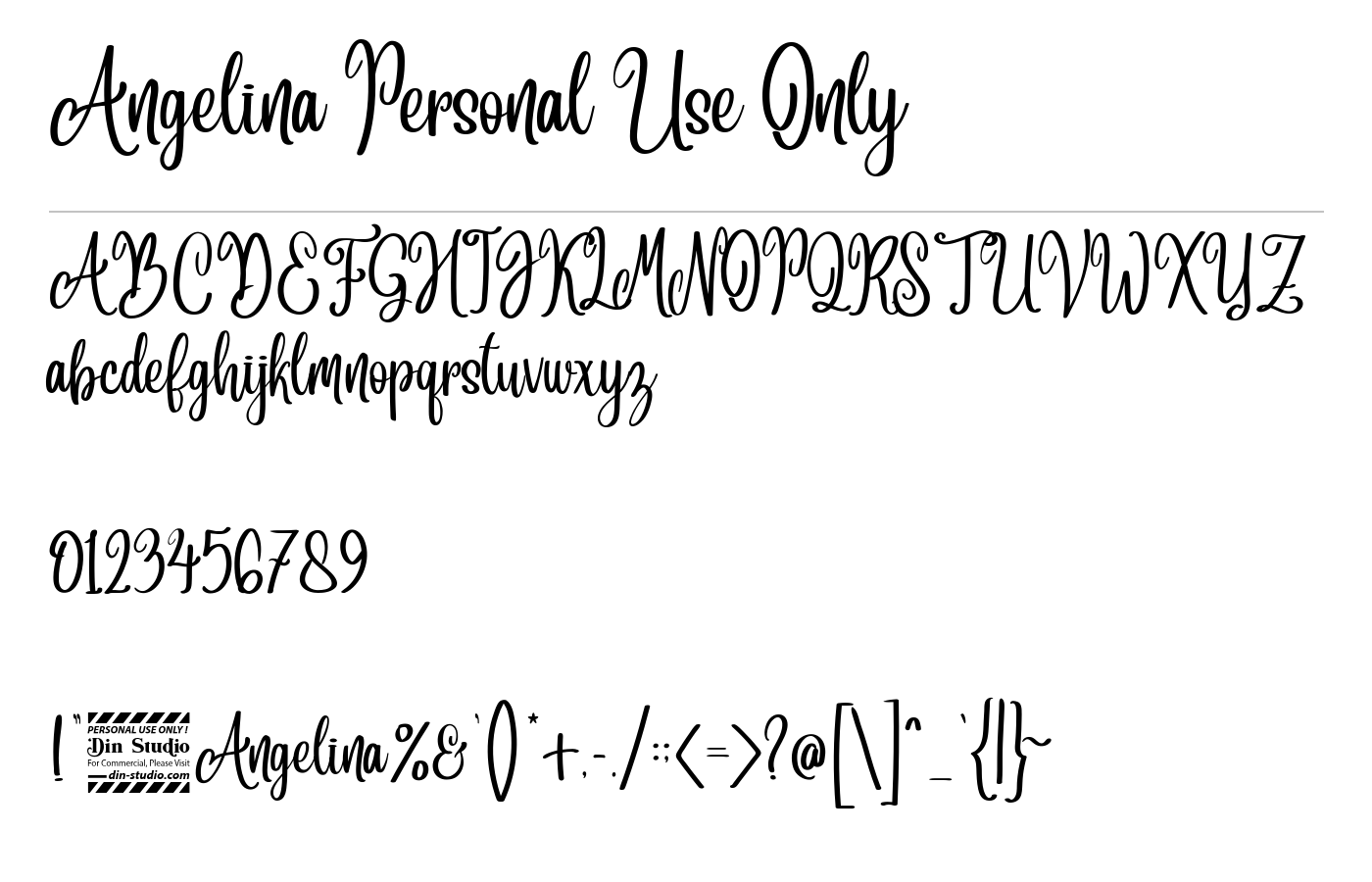
Angelina Personal Use Only is a charming script font with a playful and elegant feel, featuring tall, narrow letterforms with smooth, flowing strokes. Its distinctive swirly uppercase and delicate lowercase letters create a friendly and stylish mood, perfect for invitations, greeting cards, and branding that seeks a personal, handcrafted touch. This font works well in decorative headlines and artistic projects where a warm and approachable vibe is desired.
Angelina Personal Use Only Font
About Angelina Personal Use Only Font